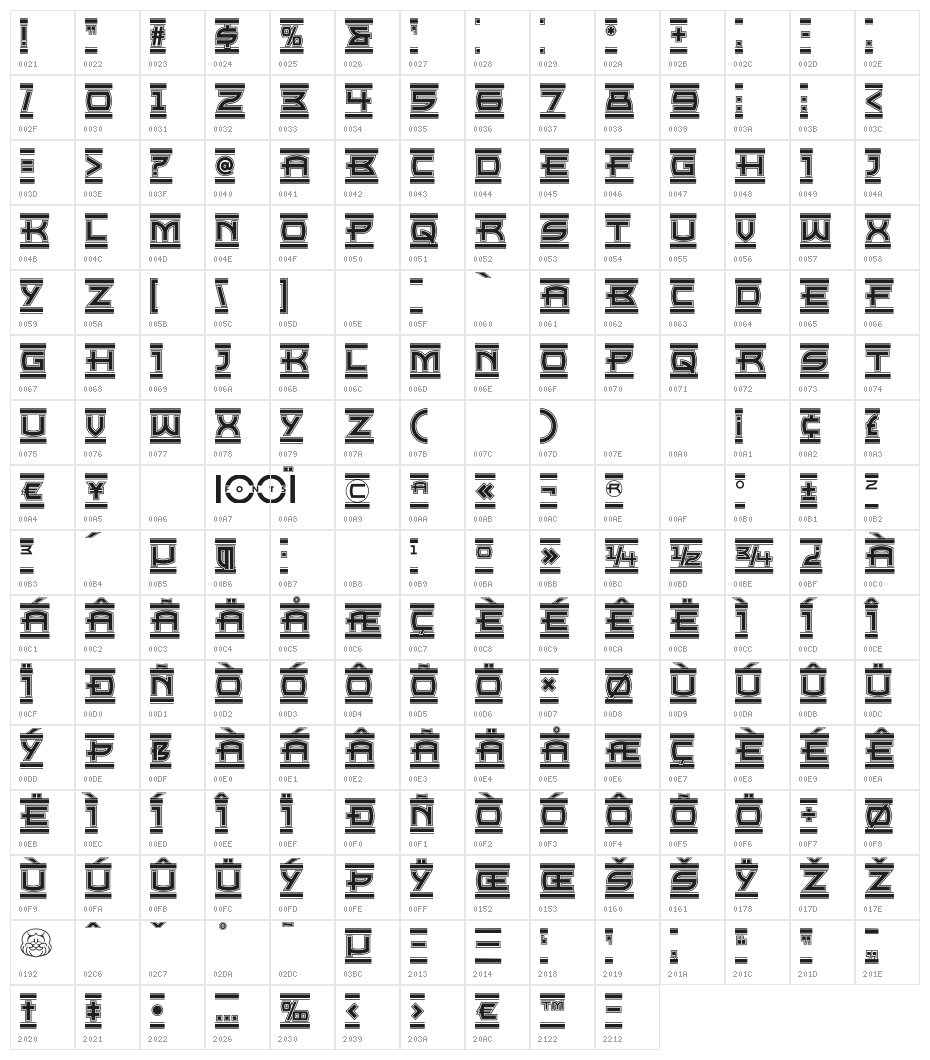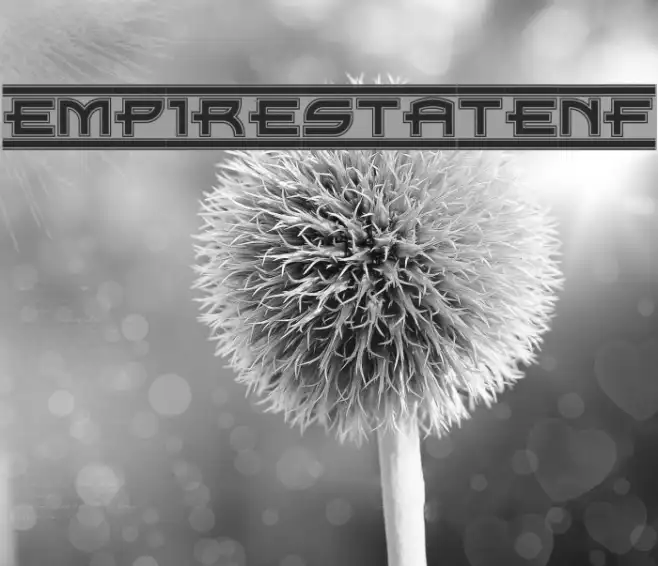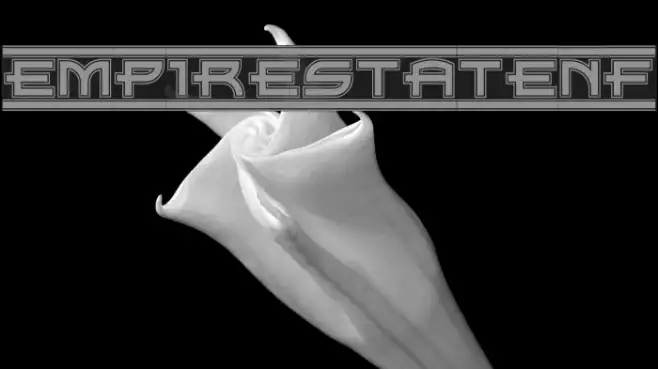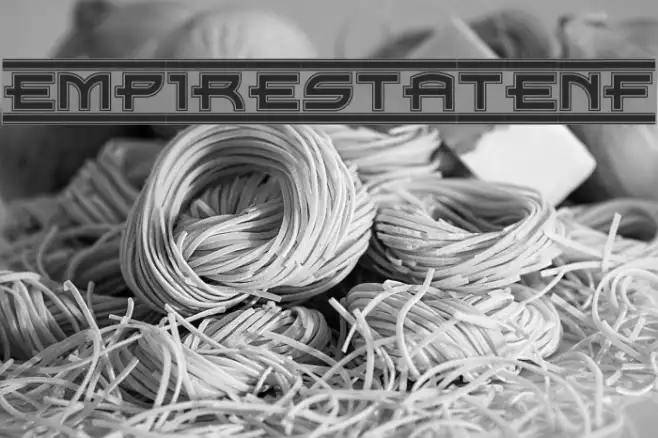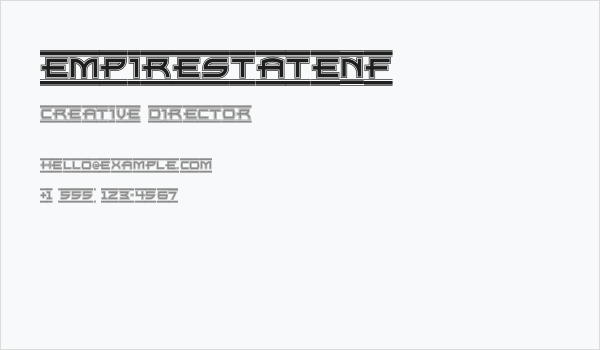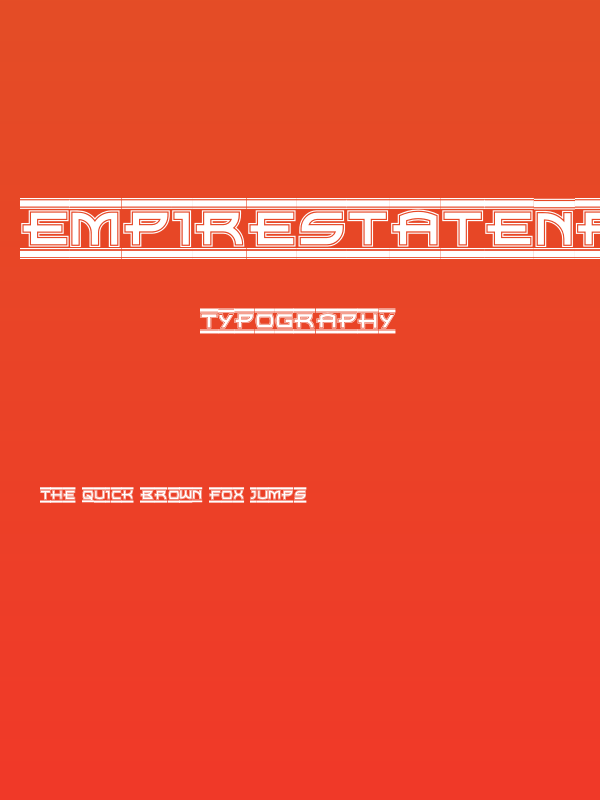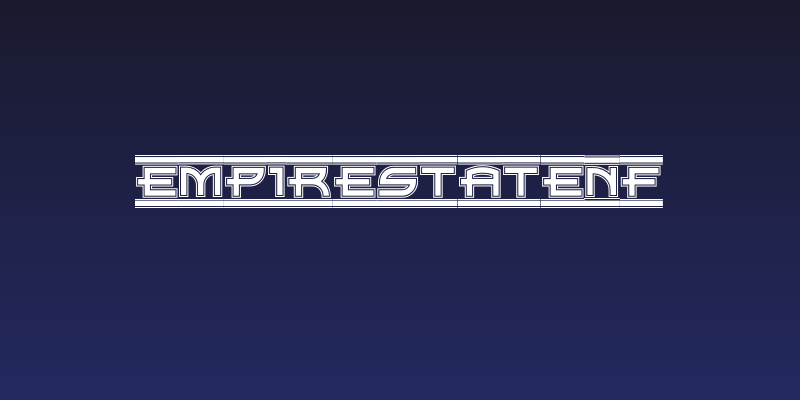
EmpireStateNF Font
EmpireStateNF Description
This font features a bold, geometric design with a strong architectural influence. The characters are outlined with a double line, giving them a three-dimensional appearance. The uppercase letters are uniform in height, with sharp angles and clean lines that create a sense of precision and modernity. The numbers and special characters follow the same stylistic approach, ensuring consistency across all glyphs. The font's unique style makes it stand out, suitable for projects that require a bold and impactful visual statement.
| Proposed Projects | Ideal for posters, logos, branding, and any design work that requires a strong, modern aesthetic. |